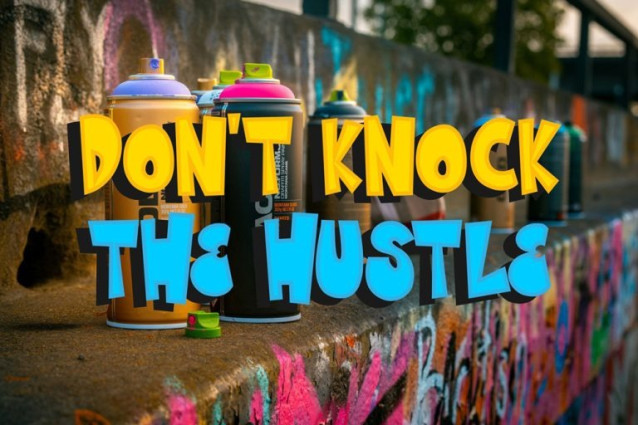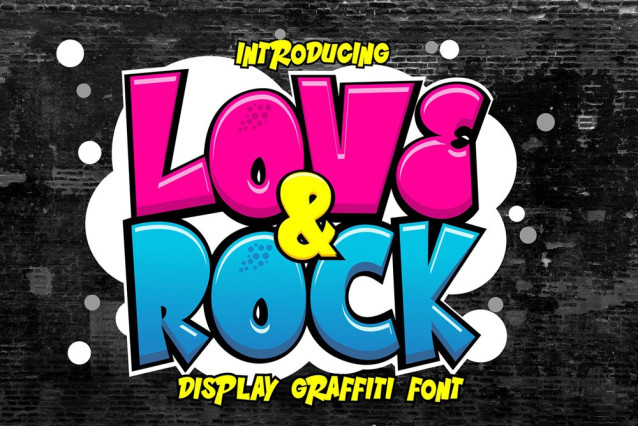
Love & Rock Font is a high-impact graffiti font that blends rebellious street energy with expressive rock-inspired lettering. Designed for creators who want to push boundaries, this urban graffiti font delivers a bold, emotional, and raw visual identity that instantly grabs attention. Whether you’re designing for streetwear, music branding, or edgy posters, Love and Rock graffiti font gives your typography a fearless voice.This graffiti display font captures the essence of underground culture—where love meets chaos and creativity meets rebellion. Every stroke feels alive, making it perfect for designers who want authentic street style fonts that stand out in a crowded visual landscape.Love and Rock graffiti font is inspired by real tagging culture and rock aesthetics, combining fluid motion with sharp attitude. This graffiti font brings a unique rhythm to your designs, allowing text to feel expressive and alive. Its bold structure makes it highly readable while still maintaining the raw energy of an authentic urban font.Whether you’re working on digital or print projects, this graffiti typeface adapts seamlessly. From album artwork to apparel graphics, Love and Rock transforms your ideas into powerful visual statements using a modern graffiti font style.Every letter in Love and Rock graffiti font is carefully crafted to deliver maximum visual impact. The strokes are bold yet dynamic, giving your typography movement and personality. This graffiti display font is designed to dominate layouts, making it perfect for headlines, logos, and branding.Unlike generic fonts, this urban graffiti font has character. It carries the spirit of rebellion and individuality—qualities that resonate strongly in today’s creative industries. If you want a graffiti font that feels authentic and energetic, Love and Rock is your ultimate choice.